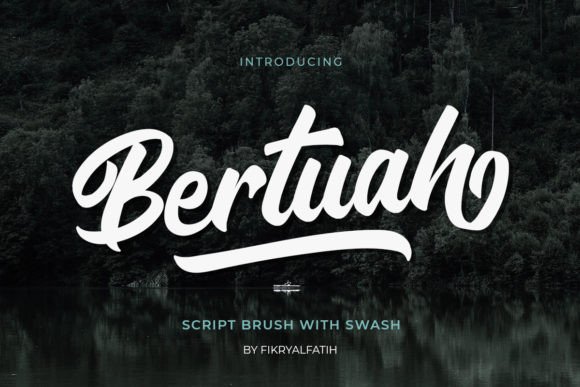
Dive into the world of captivating calligraphy with Bertuah, a script font that dances with elegance and charm. Inspired by the grace of handwritten strokes, this font family invites you to unleash your creativity and transform your designs into masterpieces.
As you journey through Bertuah's diverse collection, you'll discover a symphony of characters that harmonize effortlessly to create a symphony of visual delight. Each letter dances across the page with a fluid motion, capturing the essence of heartfelt expression.
With Bertuah as your creative companion, you'll find endless possibilities to craft designs that resonate with your audience. Whether you're creating logos that exude sophistication, crafting Instagram posts that captivate, or designing wedding invitations that radiate timeless romance, Bertuah will elevate your vision.
Unleash the power of personalization with Bertuah's PUA encoding, granting you access to a treasure trove of glyphs and ligatures. Effortlessly weave together characters to create intricate monograms, add a touch of whimsy to your social media posts, or infuse your branding with a touch of exclusivity.
Bertuah is more than just a font; it's an invitation to express yourself authentically. Whether you're a seasoned designer, a creative entrepreneur, or simply someone with a passion for beautiful typography, Bertuah empowers you to turn your ideas into reality.
So, embrace the allure of Bertuah, let your creativity flow, and embark on a journey where every letter tells a story.